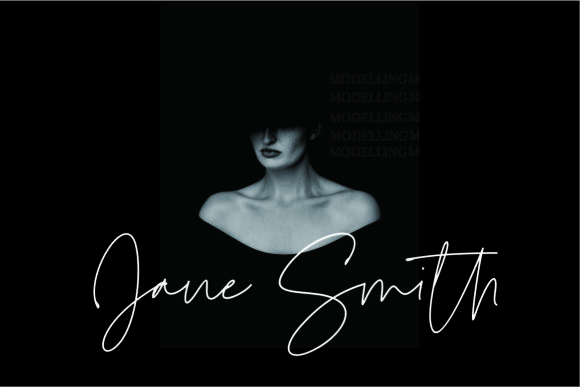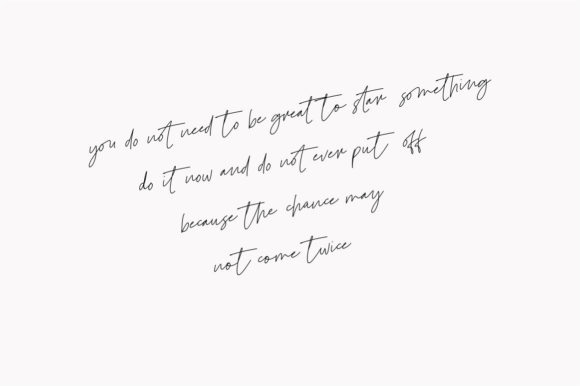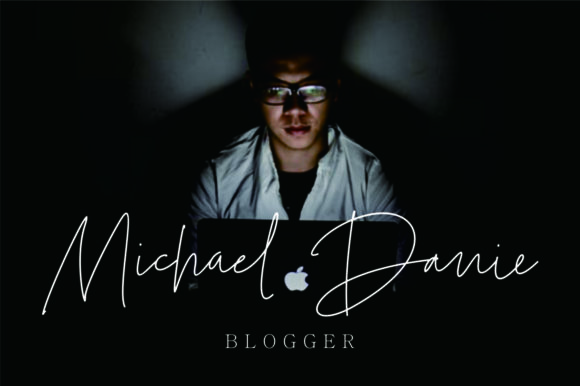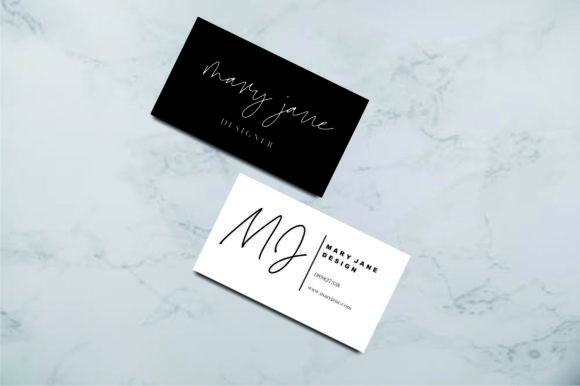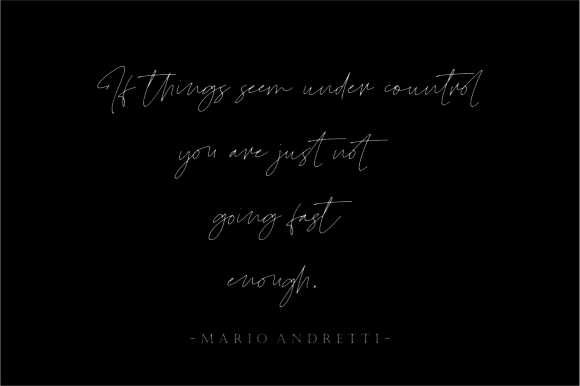
Introduction to Le Festiin Font Font
Fonts play a crucial role in design, and the Le Festiin Font font is a typeface that brings both character and versatility to any project. Whether you’re working on a branding project, a website, or a print design, the Le Festiin Font font offers a unique style that can elevate your work.
The Le Festiin is a handwritten font with fast scratches and thin natural effects.
Itβs suitable for magazines, mockups, quotes, advertisements, blogs, web design, chic, signatures, titles, business cards and much more .
Key Features of Le Festiin Font Font
Why Choose Le Festiin Font Font?
The Le Festiin Font font is more than just a typeface β it’s a design tool that helps you communicate your message with style and clarity. Its unique character set and versatile design make it suitable for a wide range of applications, from elegant invitations to bold headlines.
With its carefully crafted letterforms and balanced proportions, the Le Festiin Font font ensures readability and visual appeal across all mediums.
What makes Le Festiin Font font special?
The Le Festiin Font font stands out with its unique design, exceptional readability, and versatility across various design applications.